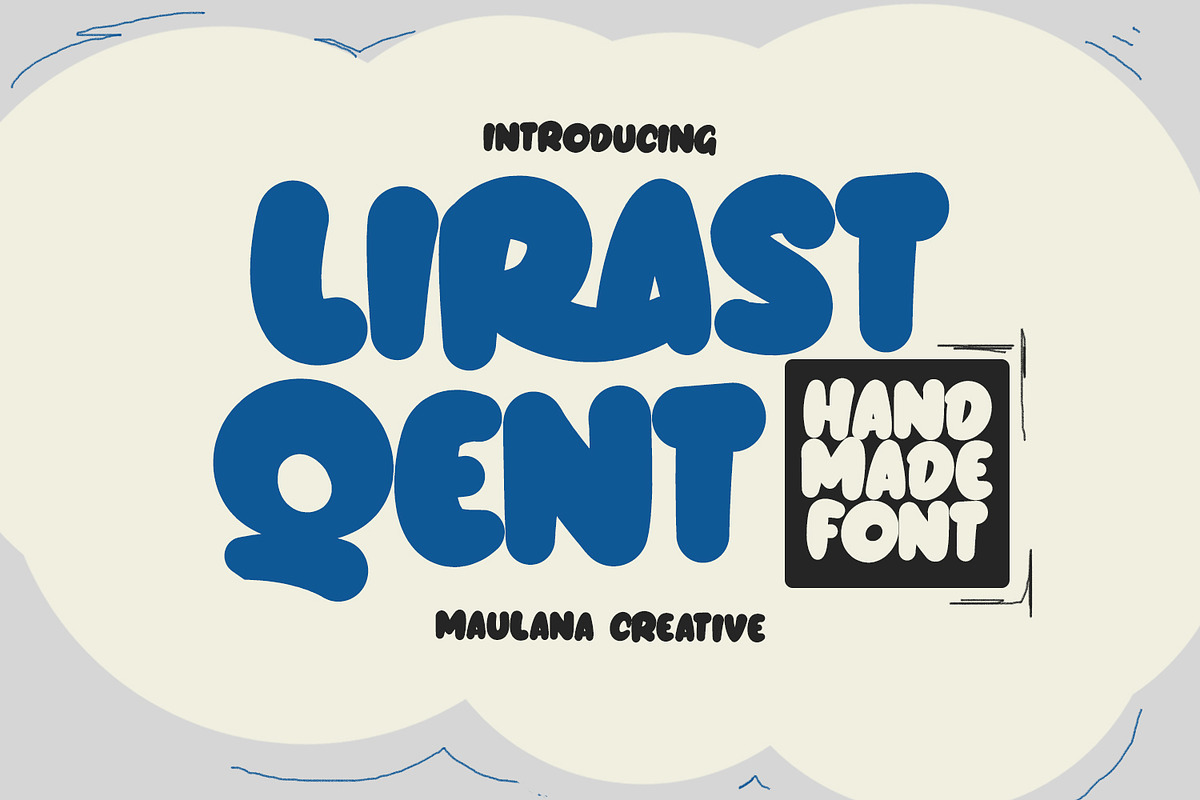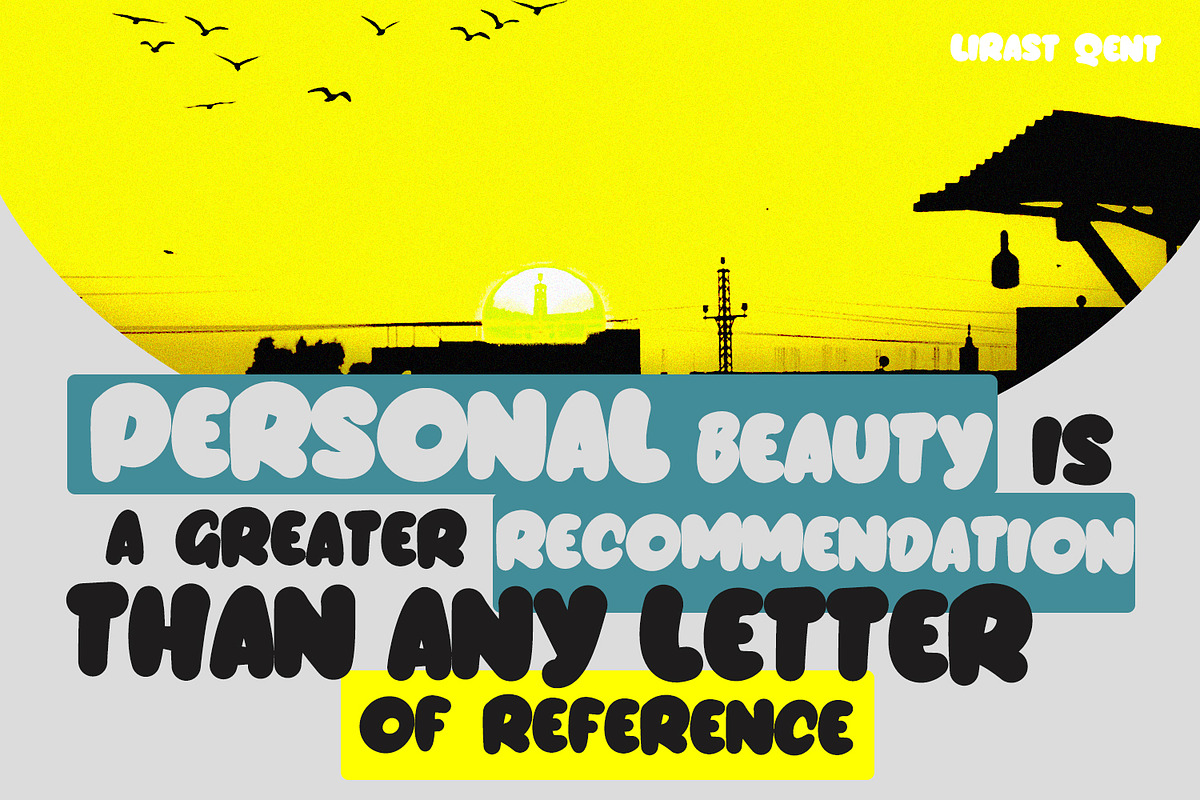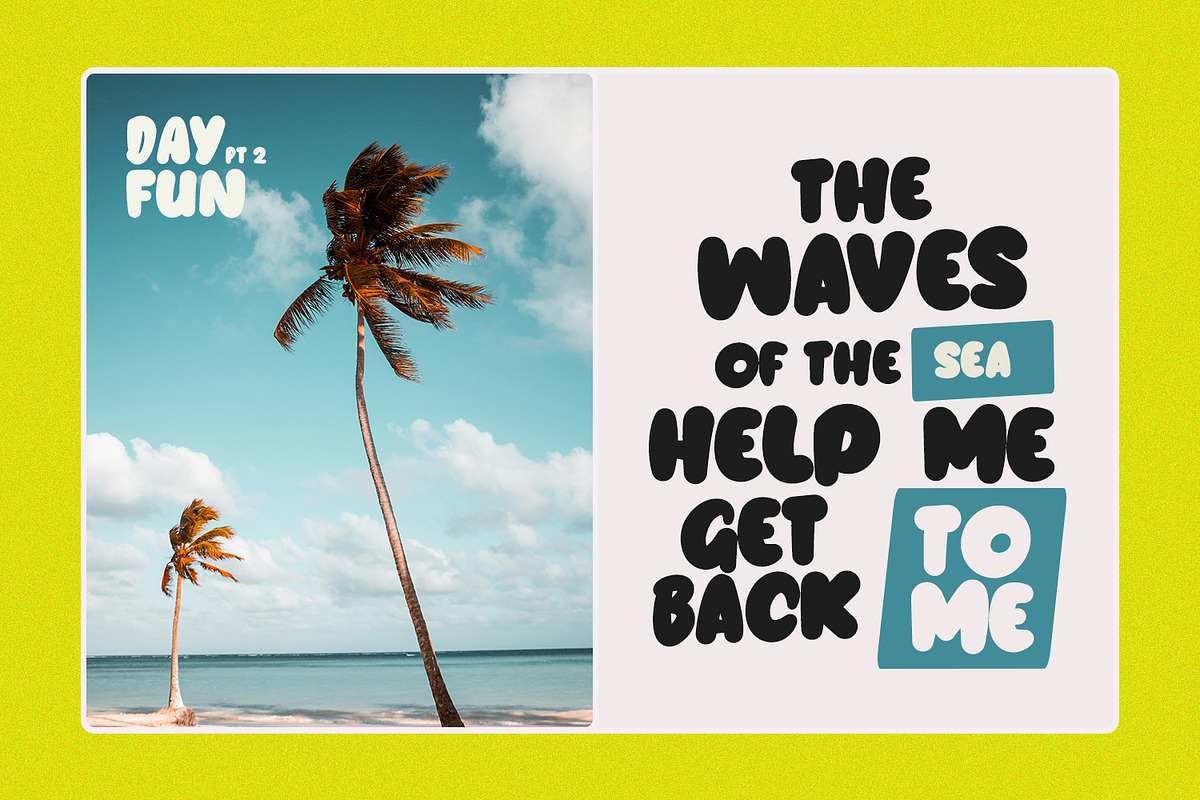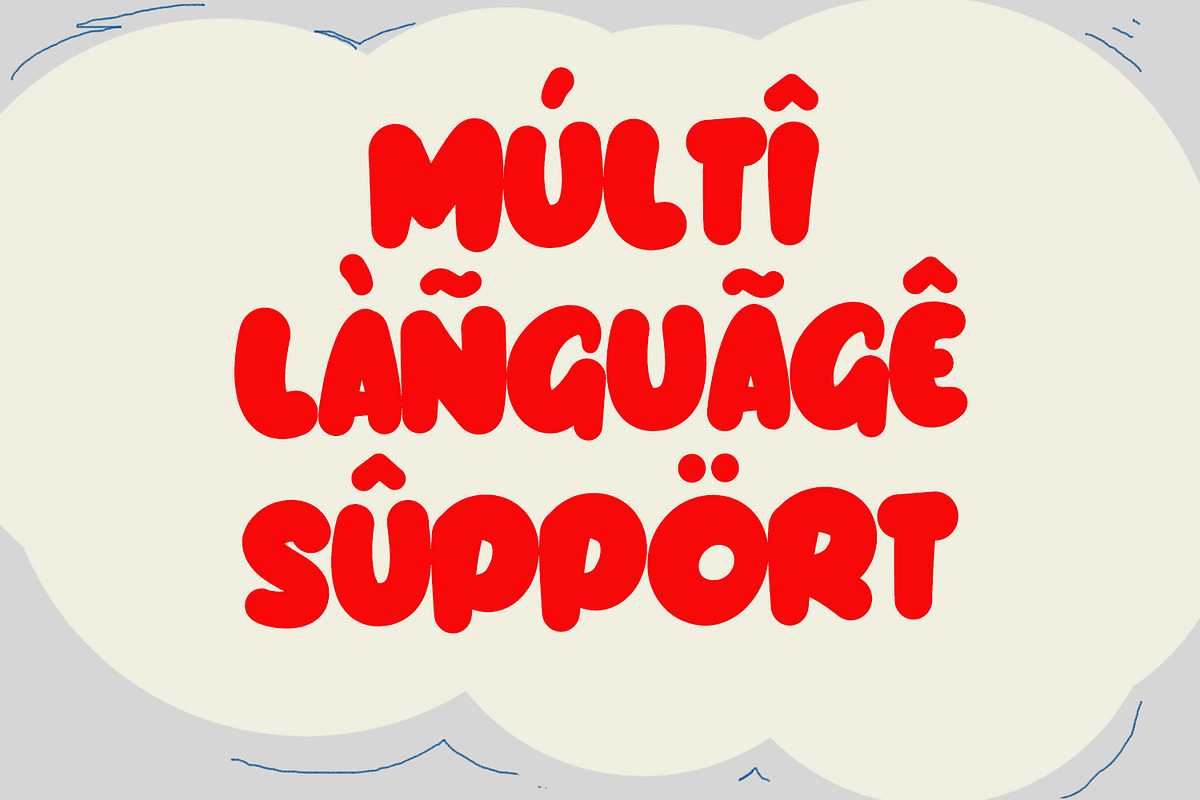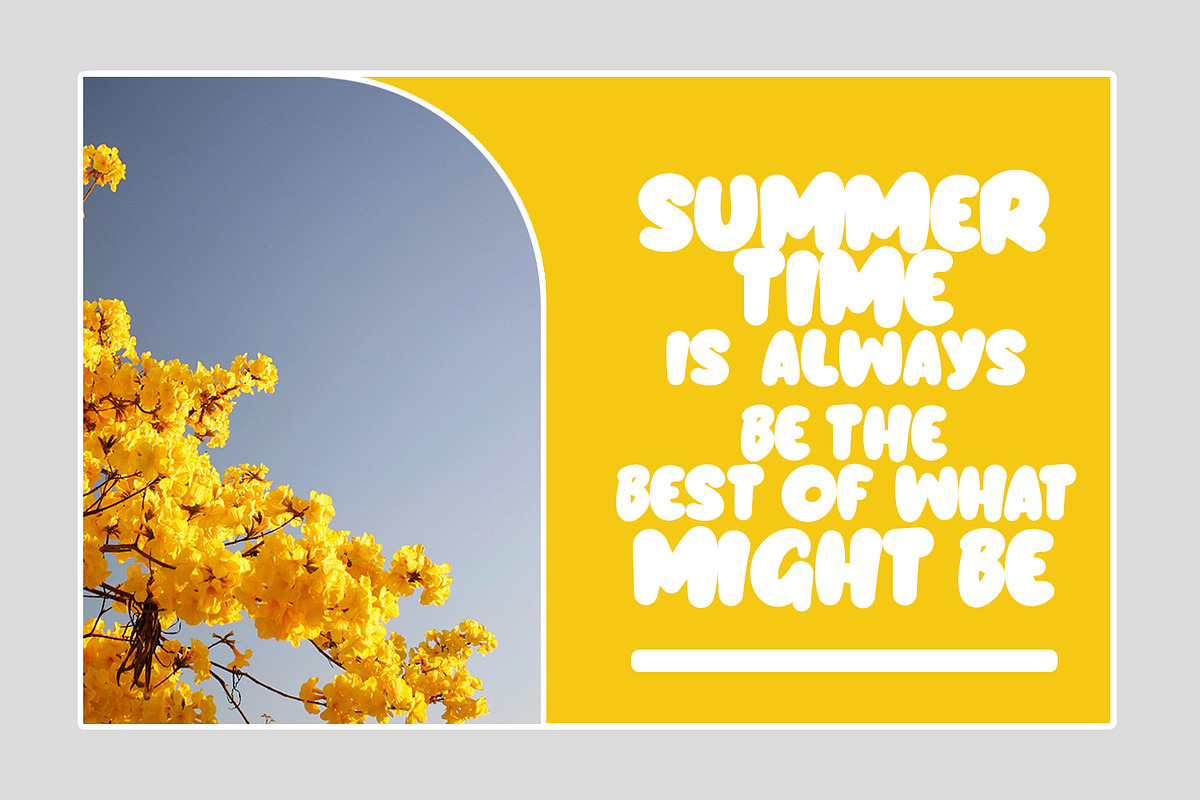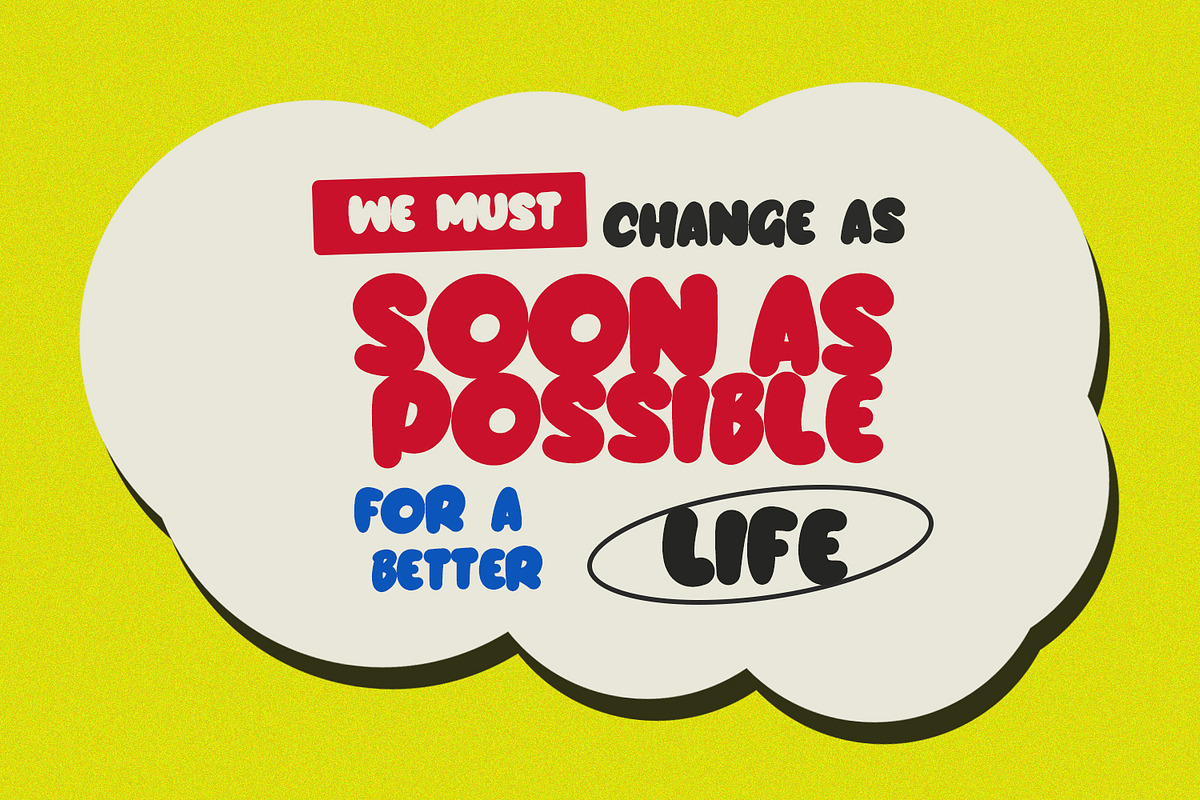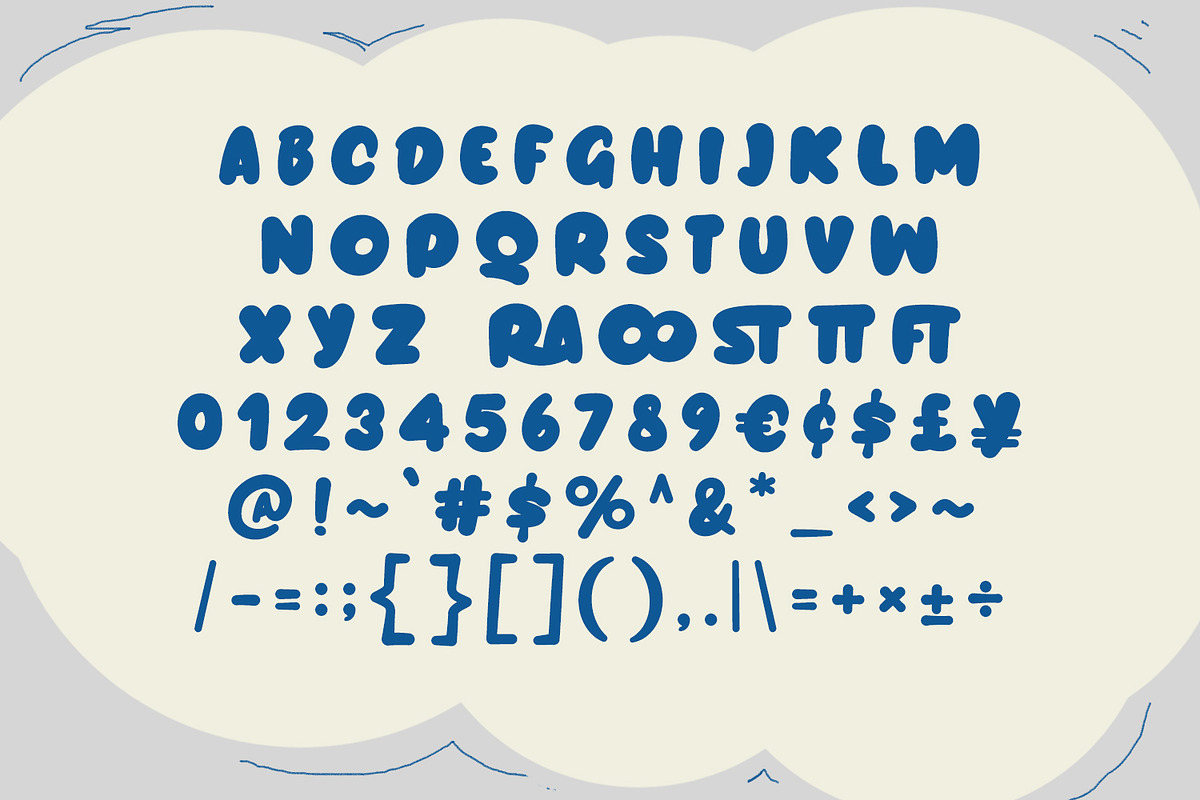
Lirast Qent Handmade Bubble Display
Lirast Qent is a handmade bubble display handwritten font. With bold stroke, fun character with a bit of ligatures. To give you an extra creative work. Lirast Qent font support multilingual more than 100+ language. This font is good for logo design, Social media, Movie Titles, Books Titles, a short text even a long text letter and good for your secondary text font with sans or serif. Make a stunning work with Lirast Qent Handmade Bubble Display Font.